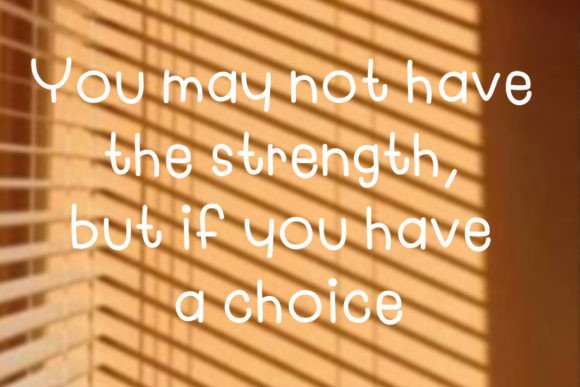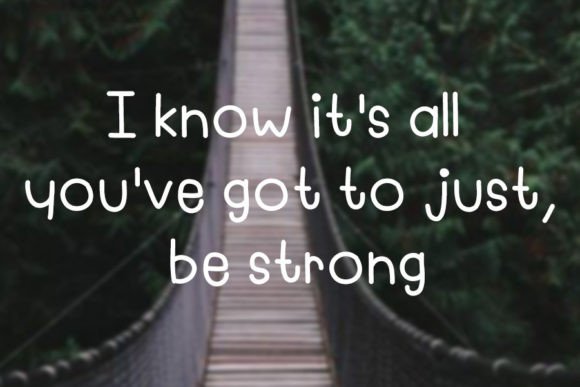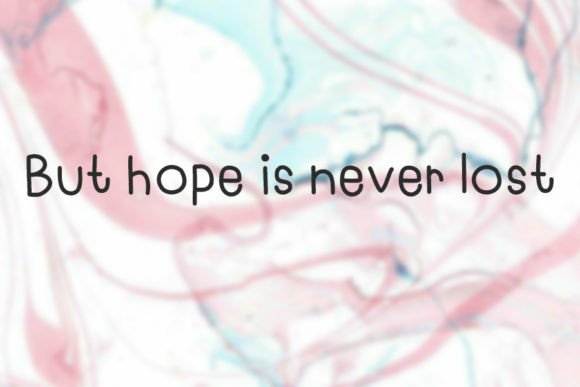
Introducing DoubleL Font: The Modern Handwritten Style for Your Creative Projects
In the world of typography, fonts play a crucial role in conveying the message and aesthetic of a project. For designers, crafters, and creatives, finding the perfect font can be a daunting task. However, if you’re looking for a modern and easy-to-spot handwritten font, look no further than DoubleL. This beautiful font is designed to add a personal touch to any project, making it perfect for a wide range of applications.
What Makes DoubleL Font Stand Out?
DoubleL is a modern and easy-to-spot handwritten font that boasts a natural, flowing style. Its unique charm lies in its simplicity and legibility, making it easy to read and understand. The font’s smooth lines and curves create a sense of fluidity, giving it a friendly and approachable feel. Whether you’re working on a branding project, crafting a social media post, or designing a DIY tutorial, DoubleL is the perfect choice.
Key Features of DoubleL Font
- Easy to Read: DoubleL’s clear and concise design makes it easy to read, even at small font sizes.
- Natural and Flowing Style: The font’s smooth lines and curves create a natural, handwritten feel that’s perfect for adding a personal touch to your projects.
- Modern and Fresh: DoubleL’s modern design makes it perfect for contemporary projects that require a fresh and stylish look.
- Versatile: The font’s versatility makes it suitable for a wide range of applications, from branding and advertising to crafting and DIY tutorials.
How to Use DoubleL Font in Your Projects
DoubleL font can be used in a variety of projects, including:
- Branding and Advertising: Use DoubleL to create eye-catching logos, business cards, and marketing materials that showcase your brand’s personality.
- Social Media Graphics: Add a personal touch to your social media posts and stories with DoubleL’s friendly and approachable style.
- Crafting and DIY Tutorials: Use DoubleL to create visually appealing tutorials, patterns, and instructions that are easy to follow.
- Stationery and Invitations: Add a touch of elegance and sophistication to your stationery and invitations with DoubleL’s beautiful handwritten style.
Tips for Getting the Most Out of DoubleL Font
To get the most out of DoubleL font, here are some tips to keep in mind:
- Experiment with Font Sizes: DoubleL looks great at a variety of font sizes, so don’t be afraid to experiment and find the perfect size for your project.
- Pair with Other Fonts: DoubleL pairs well with other fonts, so try combining it with bold or serif fonts to create visual interest.
- Use in Combination with Images: DoubleL looks great when used in combination with images, so try using it to add text to your photos or illustrations.
In conclusion, DoubleL font is a beautiful and versatile handwritten font that’s perfect for adding a personal touch to any project. Its modern and easy-to-spot design makes it easy to read and understand, while its natural and flowing style gives it a friendly and approachable feel. Whether you’re a designer, crafter, or creative, DoubleL is a great choice for any project that requires a fresh and stylish look.
So why not give DoubleL a try? With its ease of use and versatility, it’s the perfect font for anyone looking to add a personal touch to their projects.